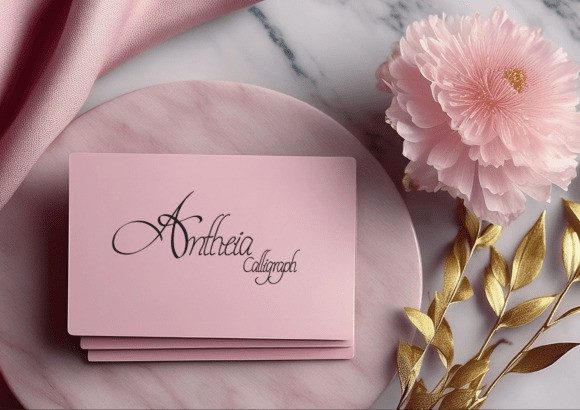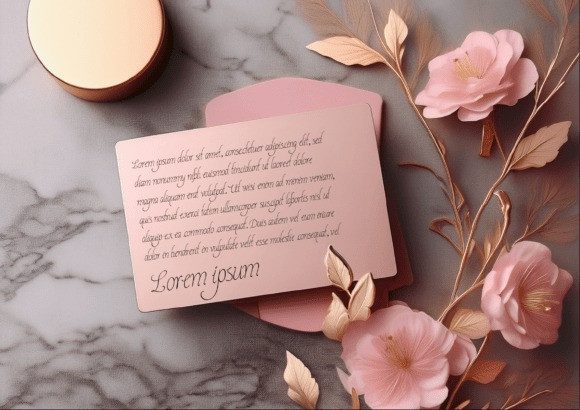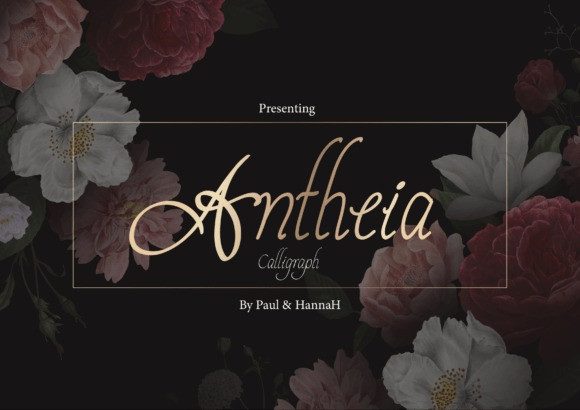
Antheia Font, an elegant and flowing modern calligraphy font designed to bring a touch of timeless sophistication to your creative projects. Perfect for wedding invitations, luxury branding, logos, greeting cards, and social media posts.
Antheia Calligraph features smooth curves, graceful swashes, and delicate letter connections that give your text a romantic, feminine charm. Whether you’re crafting a brand identity or designing stationery, this font will elevate your work with its refined beauty.